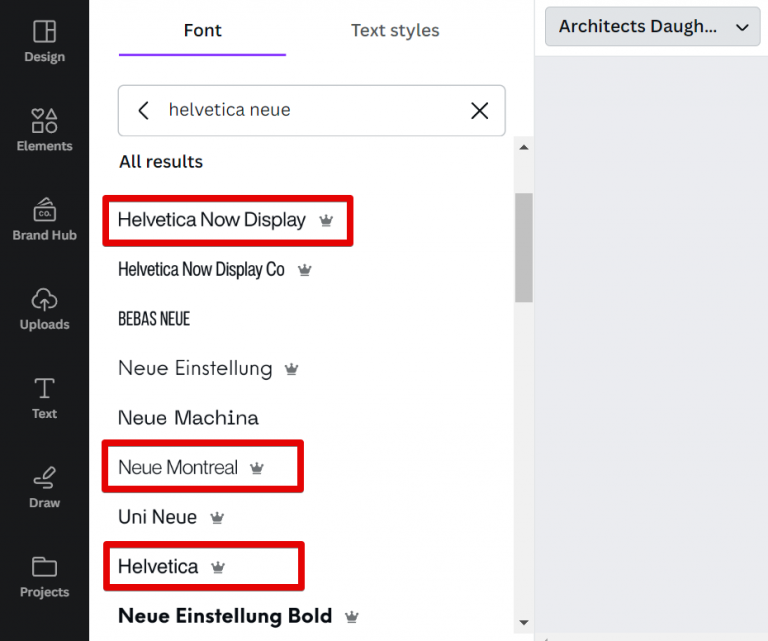
Font Closest To Helvetica
Font Closest To Helvetica - A few years ago, we published an article to help designers and typography. Web from the versatile univers to the sleek arial, the purebred neue haas grotesk to the modernist gotham — we’ve got the font families, weights, and styles that blend seamlessly into your creations. Many typefaces look like helvetica that may already exist in your computer's font collection. When you're looking for a great pairing for fonts. Web helvetica is not included as a default font on windows computers. Unless you know the look. Free alternatives & similar fonts 1. Web december 16, 2020 fonts & typography | creativity & design believe it or not, there are quite a few helvetica font alternatives you can use. Web 10 best fonts to pair with helvetica font alternatives visia pro (ttf, otf, woff) and gafta serif font (ttf, otf, woff).
Free alternatives & similar fonts 1. Many typefaces look like helvetica that may already exist in your computer's font collection. When you're looking for a great pairing for fonts. Unless you know the look. Web helvetica is not included as a default font on windows computers. Web 10 best fonts to pair with helvetica font alternatives visia pro (ttf, otf, woff) and gafta serif font (ttf, otf, woff). Web from the versatile univers to the sleek arial, the purebred neue haas grotesk to the modernist gotham — we’ve got the font families, weights, and styles that blend seamlessly into your creations. Web december 16, 2020 fonts & typography | creativity & design believe it or not, there are quite a few helvetica font alternatives you can use. A few years ago, we published an article to help designers and typography.
Web helvetica is not included as a default font on windows computers. A few years ago, we published an article to help designers and typography. Unless you know the look. Many typefaces look like helvetica that may already exist in your computer's font collection. Web 10 best fonts to pair with helvetica font alternatives visia pro (ttf, otf, woff) and gafta serif font (ttf, otf, woff). Web december 16, 2020 fonts & typography | creativity & design believe it or not, there are quite a few helvetica font alternatives you can use. Web from the versatile univers to the sleek arial, the purebred neue haas grotesk to the modernist gotham — we’ve got the font families, weights, and styles that blend seamlessly into your creations. When you're looking for a great pairing for fonts. Free alternatives & similar fonts 1.
Many typefaces look like helvetica that may already exist in your computer's font collection. Web helvetica is not included as a default font on windows computers. Free alternatives & similar fonts 1. Web 10 best fonts to pair with helvetica font alternatives visia pro (ttf, otf, woff) and gafta serif font (ttf, otf, woff). A few years ago, we published.
Unless you know the look. Web 10 best fonts to pair with helvetica font alternatives visia pro (ttf, otf, woff) and gafta serif font (ttf, otf, woff). Many typefaces look like helvetica that may already exist in your computer's font collection. Web december 16, 2020 fonts & typography | creativity & design believe it or not, there are quite a.
Web from the versatile univers to the sleek arial, the purebred neue haas grotesk to the modernist gotham — we’ve got the font families, weights, and styles that blend seamlessly into your creations. Web helvetica is not included as a default font on windows computers. Web 10 best fonts to pair with helvetica font alternatives visia pro (ttf, otf, woff).
Helvetica Font Gets Its First Redesign in 35 Years
Web helvetica is not included as a default font on windows computers. A few years ago, we published an article to help designers and typography. Web december 16, 2020 fonts & typography | creativity & design believe it or not, there are quite a few helvetica font alternatives you can use. Web from the versatile univers to the sleek arial,.
Web from the versatile univers to the sleek arial, the purebred neue haas grotesk to the modernist gotham — we’ve got the font families, weights, and styles that blend seamlessly into your creations. When you're looking for a great pairing for fonts. Unless you know the look. Free alternatives & similar fonts 1. Many typefaces look like helvetica that may.
A Guide to Helvetica Fonts
Web from the versatile univers to the sleek arial, the purebred neue haas grotesk to the modernist gotham — we’ve got the font families, weights, and styles that blend seamlessly into your creations. Free alternatives & similar fonts 1. Web helvetica is not included as a default font on windows computers. Unless you know the look. Web december 16, 2020.
Free font Helvetica Now by Monotype — FontsArena
A few years ago, we published an article to help designers and typography. Unless you know the look. Web december 16, 2020 fonts & typography | creativity & design believe it or not, there are quite a few helvetica font alternatives you can use. Web from the versatile univers to the sleek arial, the purebred neue haas grotesk to the.
What Is the Closest Font to Helvetica Neue in Canva
Free alternatives & similar fonts 1. Web december 16, 2020 fonts & typography | creativity & design believe it or not, there are quite a few helvetica font alternatives you can use. Web from the versatile univers to the sleek arial, the purebred neue haas grotesk to the modernist gotham — we’ve got the font families, weights, and styles that.
Helvetica Font Gets Its First Redesign in 35 Years
Unless you know the look. Web from the versatile univers to the sleek arial, the purebred neue haas grotesk to the modernist gotham — we’ve got the font families, weights, and styles that blend seamlessly into your creations. When you're looking for a great pairing for fonts. Web 10 best fonts to pair with helvetica font alternatives visia pro (ttf,.
What font is helvetica on windows
Web helvetica is not included as a default font on windows computers. Many typefaces look like helvetica that may already exist in your computer's font collection. Web december 16, 2020 fonts & typography | creativity & design believe it or not, there are quite a few helvetica font alternatives you can use. Unless you know the look. A few years.
A Few Years Ago, We Published An Article To Help Designers And Typography.
Web 10 best fonts to pair with helvetica font alternatives visia pro (ttf, otf, woff) and gafta serif font (ttf, otf, woff). Web from the versatile univers to the sleek arial, the purebred neue haas grotesk to the modernist gotham — we’ve got the font families, weights, and styles that blend seamlessly into your creations. Unless you know the look. Free alternatives & similar fonts 1.
Web December 16, 2020 Fonts & Typography | Creativity & Design Believe It Or Not, There Are Quite A Few Helvetica Font Alternatives You Can Use.
Web helvetica is not included as a default font on windows computers. When you're looking for a great pairing for fonts. Many typefaces look like helvetica that may already exist in your computer's font collection.